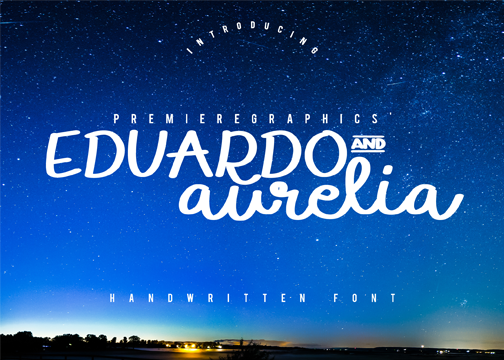
Preview and download Eduardo & Aurelia Font. Created by PremiereGraphics in Script Brush styles with Free for personal use license.
Thank you for downloading! Purchase the licensed version of the font here - https://crmrkt.com/2w09r Eduardo and Aurelia is one extraordinary typeface. Whether you are a designer or a poet, this is perfect for anything. Its LOWERCASE and UPPERCASE are carefully designed to have equal and unique style. If you are a person who likes capitals or a person who likes small letters, Eduardo and Aurelia is for you! |